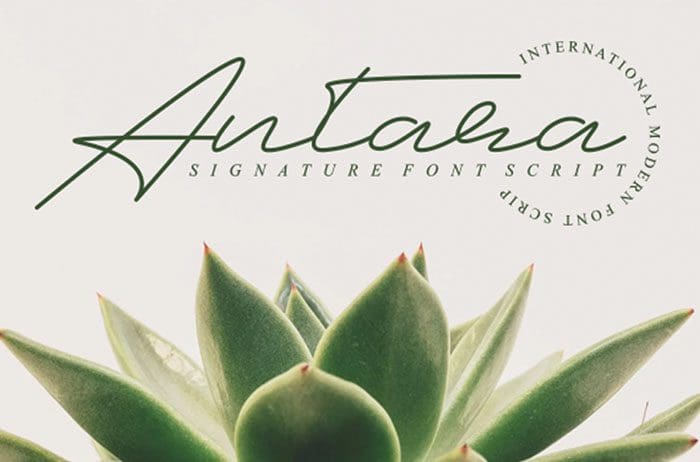
Free Antara Calligraphy Font
Antara Calligraphy Font
Free Antara calligraphy font simplifies elegance into one truly outstanding. It maintains its classy calligraphic influences while feeling contemporary and fresh. Designed this font by Andika Studio. You can also search more freeĀ Calligraphy Fonts.